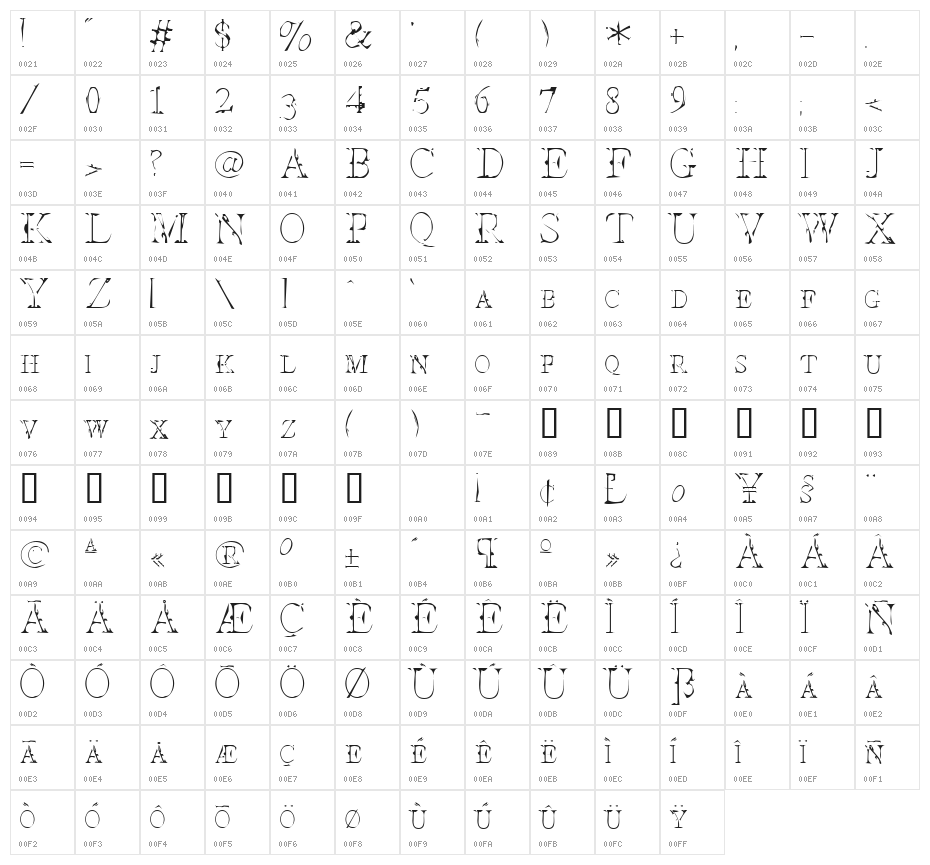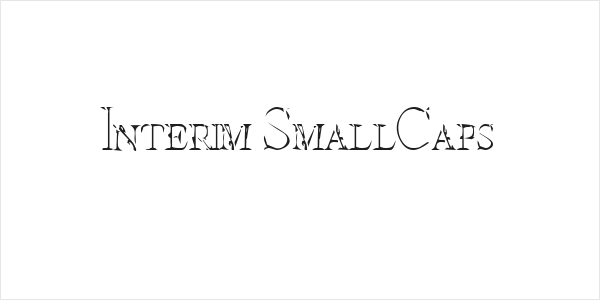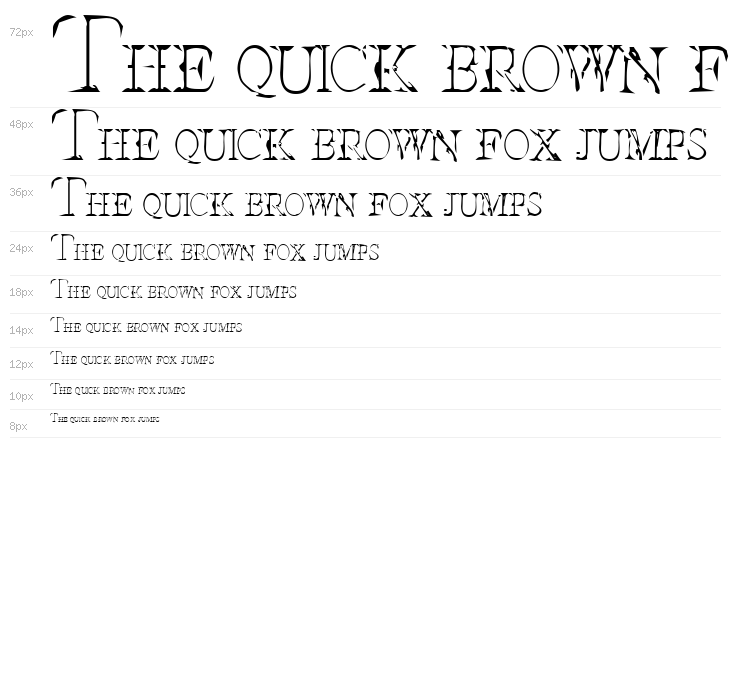
Interim SmallCaps Font
Interim SmallCaps Description
This font features a unique, distressed style with a high level of intricacy in its design. Each character appears as if it has been artistically eroded or weathered, giving it a distinct, edgy appearance. The uppercase and lowercase letters maintain a consistent height, contributing to a uniform look. The numbers and special characters follow the same stylistic theme, ensuring cohesion throughout. This font's artistic flair makes it stand out, ideal for projects that require a bold and unconventional aesthetic.
| Proposed Projects | Ideal for album covers, posters, branding for edgy or alternative products, and any design needing a bold, artistic touch. |